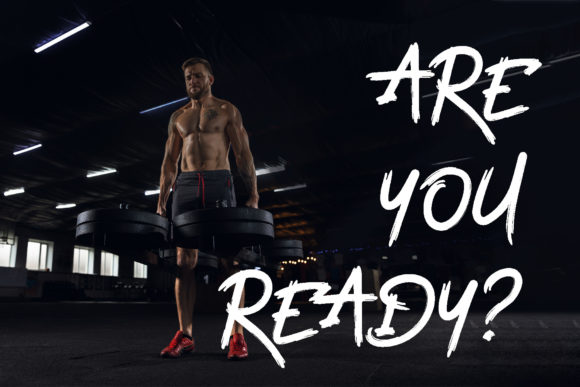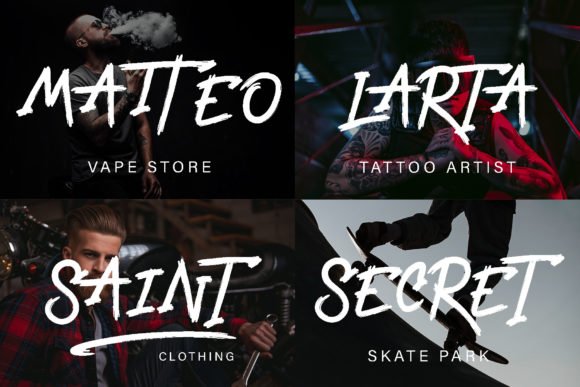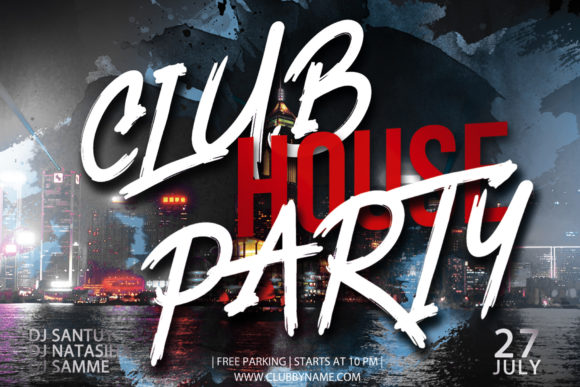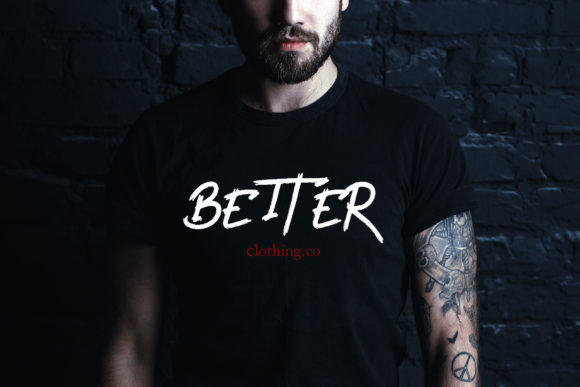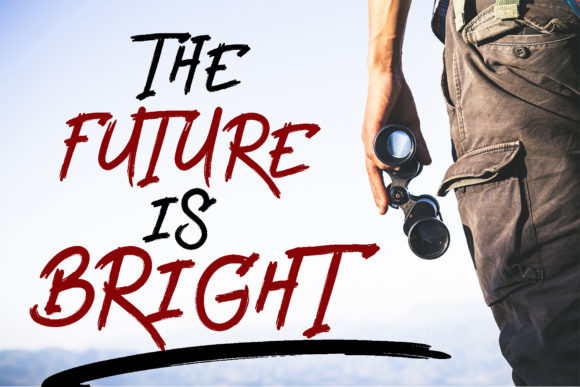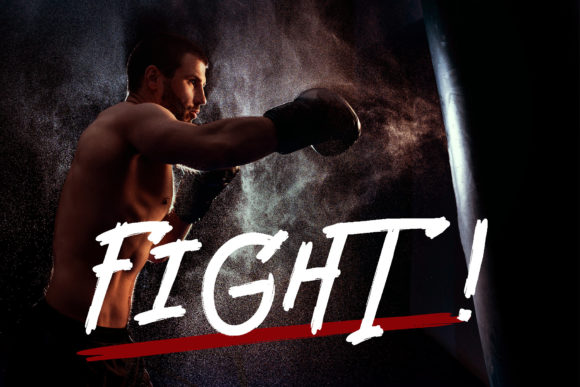
The Power of Black Manta Font: Unleashing Urban Style in Your Designs
I’ll never forget the design project that led me to discover the Black Manta Font. I was working on a branding campaign for a trendy new skateboard shop, and I needed a font that would convey a sense of edginess and urban cool. After hours of scouring font libraries and trying out different combinations, I stumbled upon Black Manta – and it was love at first sight! ✨
An Honest Review: What I Love (and What to Watch Out For)
So, what makes Black Manta so special? Here are a few things that I absolutely love about this font:
- 💪 Strong character: Black Manta has a bold, rugged feel that’s perfect for making a statement.
- 🎨 Brushed texture: The font’s subtle brush strokes give it a organic, hand-crafted look that’s perfect for urban and edgy designs.
- 👍 Ease of use: Black Manta is surprisingly easy to read, even at smaller sizes – making it versatile for a range of design applications.
- ✅ High-impact: This font is guaranteed to make your designs stand out from the crowd!
Of course, no font is perfect, and Black Manta does have a few quirks to watch out for:
- 🤔 Limited use cases: While Black Manta is amazing for headlines and titles, it may not be the best choice for body text or longer blocks of content.
- ⚠️ Overuse: Be careful not to overuse Black Manta – too much of a good thing can quickly become overwhelming!
Exploring OpenType Features: Glyphs, Stylistic Alternates, and More
One of the things that sets Black Manta apart is its robust OpenType features. With access to a range of glyphs, stylistic alternates, and other advanced typography tools, you can customize your text to fit your brand’s unique style. For example, you can use:
- 💡 Glyphs: Add extra visual interest to your text with custom glyphs and ornaments.
- 🔄 Stylistic alternates: Switch between different font styles to create a more dynamic look.
The Story Behind Black Manta: Designer Inspiration
According to its creators, Black Manta was inspired by the gritty streets of urban America. The font’s designers wanted to capture the raw energy and rebellious spirit of city life – and we think they succeeded! 💥
| What type of designs is Black Manta best suited for? | Black Manta is perfect for bold, eye-catching designs like posters, flyers, and social media graphics. |
| Can I use Black Manta for body text? | While Black Manta is technically readable, it’s best used for headlines and titles – not body text. |